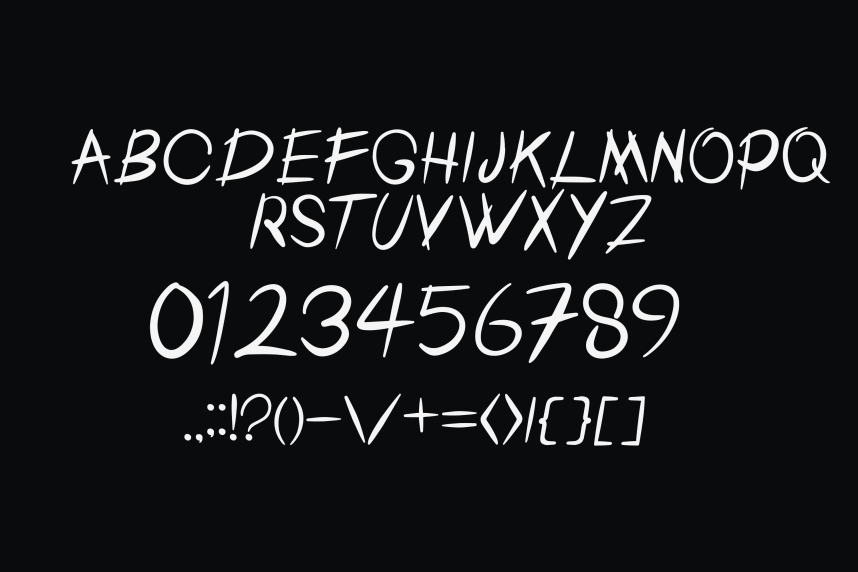
Slice Scary Font
Slice Scary Font is a jagged, slashed display font with sharp, torn edges — raw and menacing, perfect for horror, haunted house, and hardcore-themed designs.
Imam Fathoni